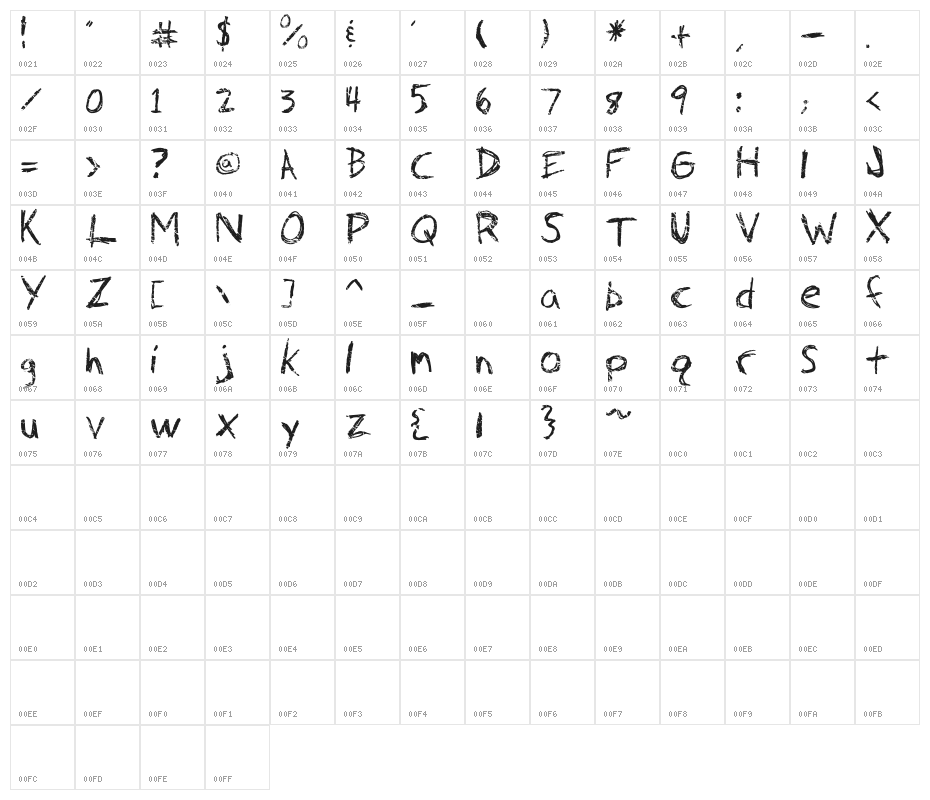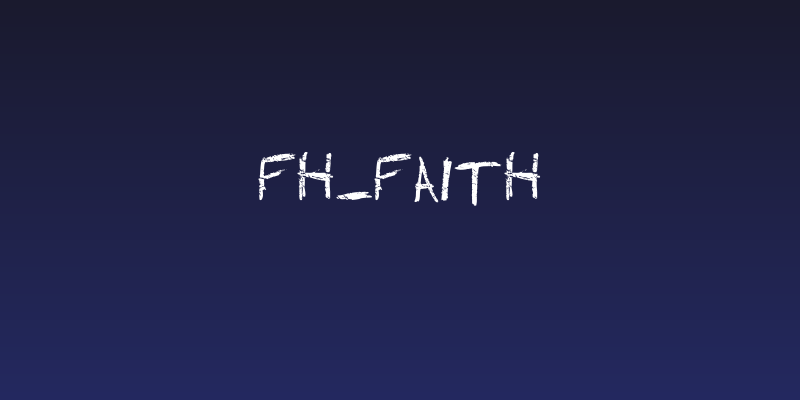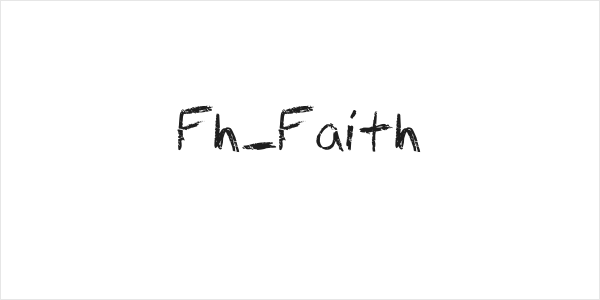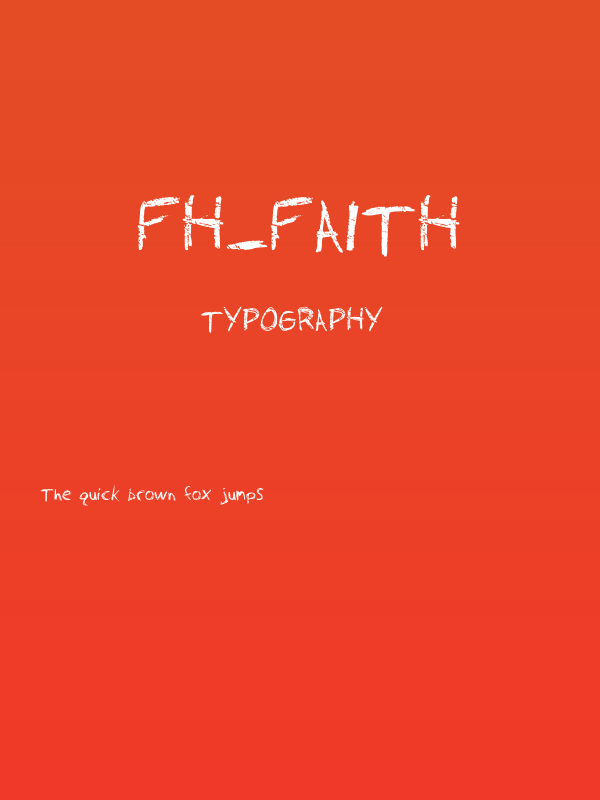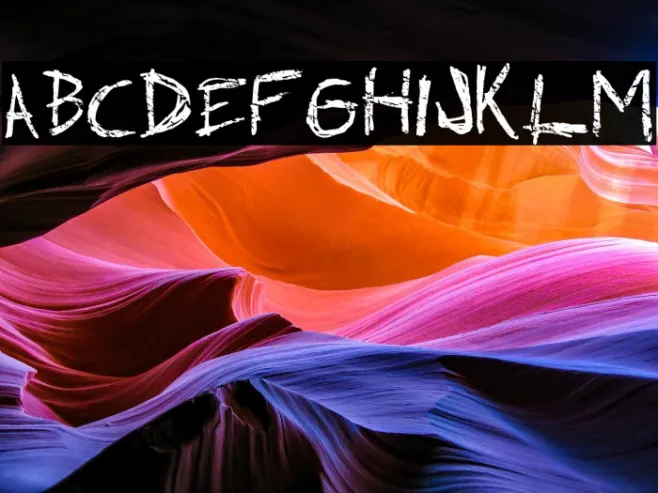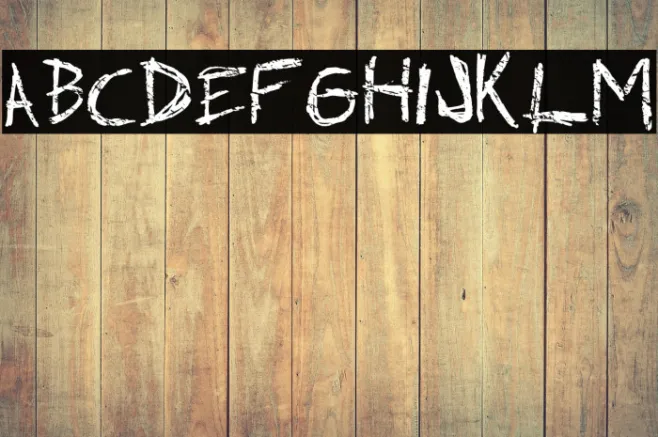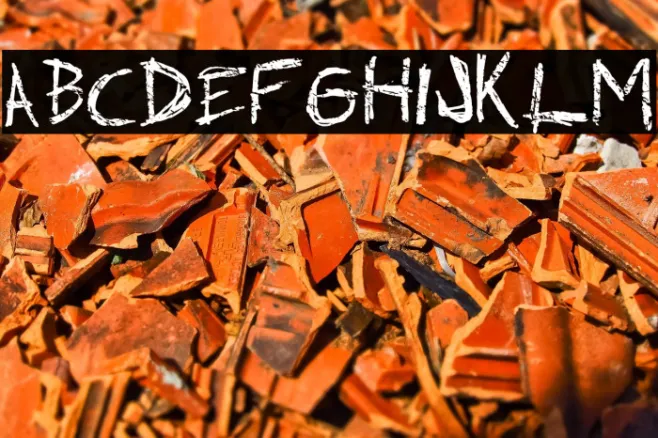
Fh_Faith Font
Fh_Faith Description
This font features a rugged, distressed style with a hand-drawn appearance. The characters are irregular and textured, giving them a raw, artistic feel. The uppercase and lowercase letters maintain a consistent style, with jagged edges and a slightly chaotic structure. Numbers and special characters follow the same aesthetic, adding to the overall grunge effect. This font is ideal for projects that require a bold, unconventional look, such as album covers, posters, or edgy branding materials.
| Proposed Projects | Album covers, posters, edgy branding materials, artistic designs. |